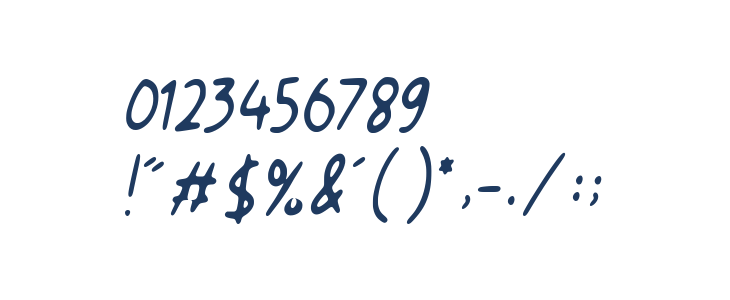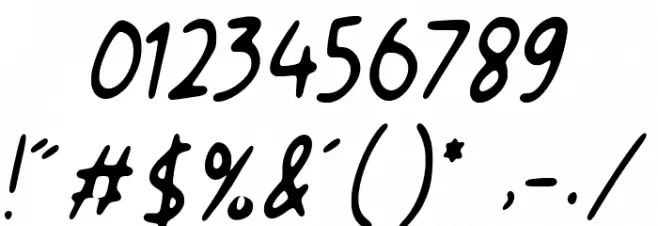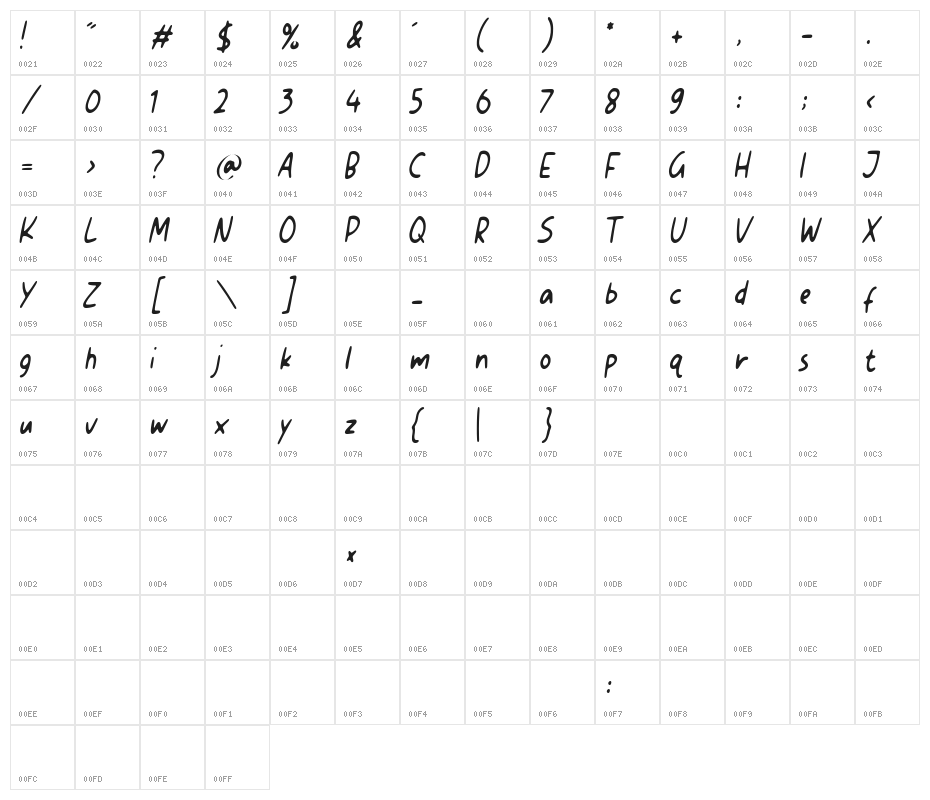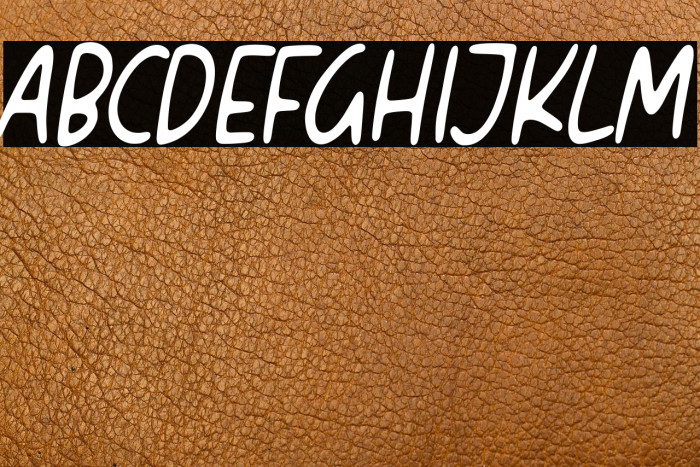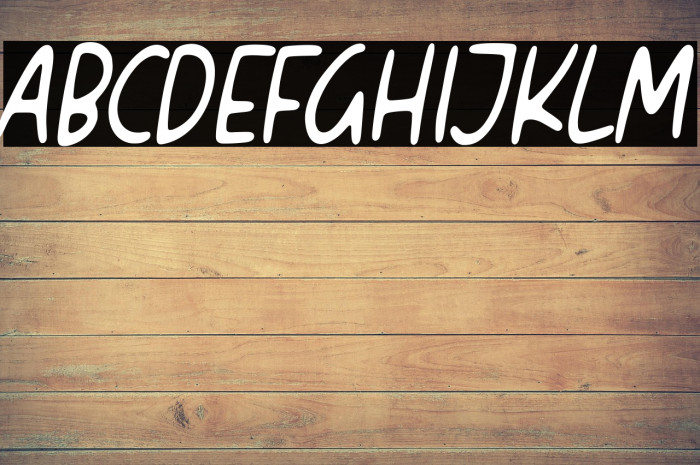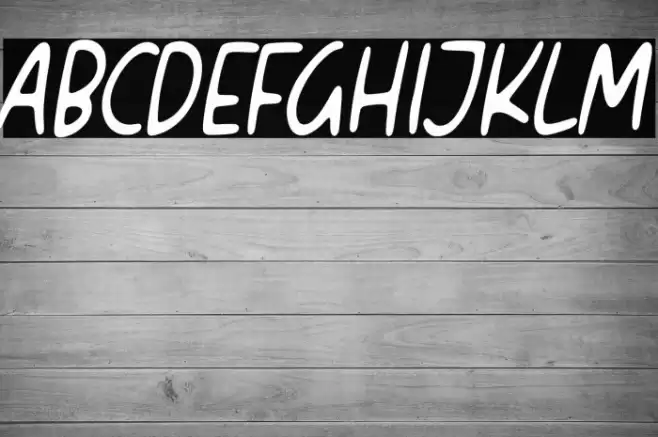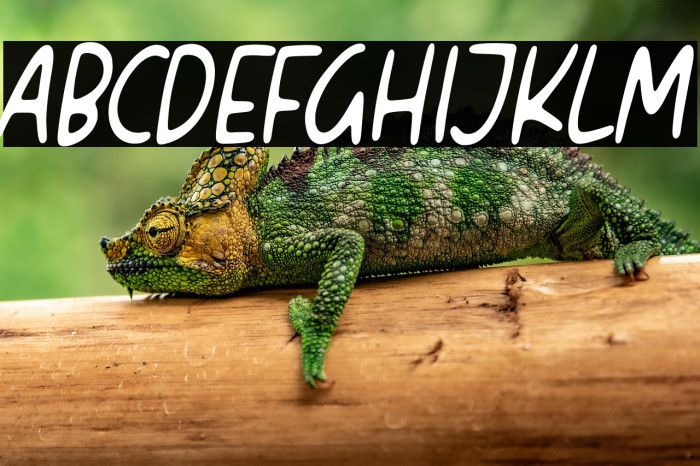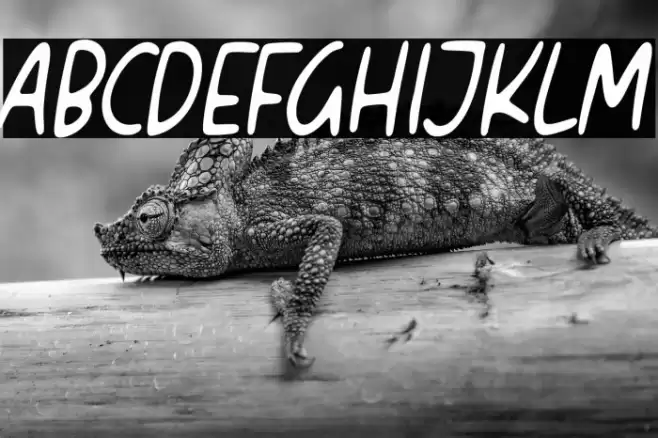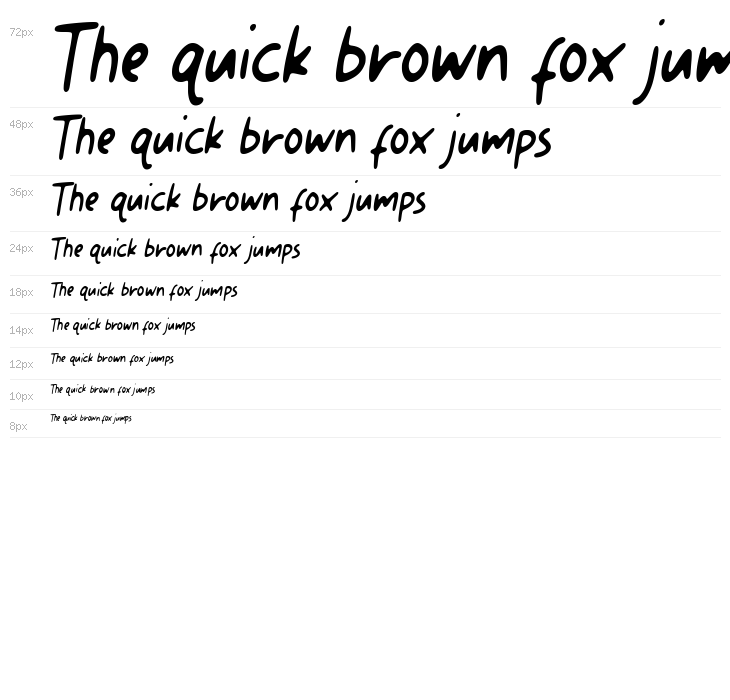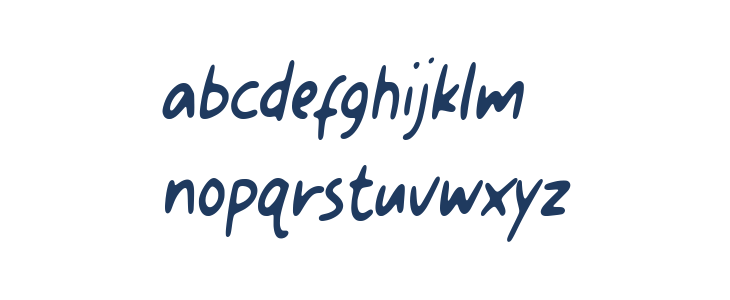
Original Quotes Font
Original Quotes Description
This font features a playful and casual handwritten style, characterized by its smooth, flowing curves and slightly irregular letterforms. The uppercase and lowercase letters maintain a consistent style, with a natural and organic feel that mimics the look of handwriting. The numbers and special characters are designed to match the overall aesthetic, providing a cohesive appearance across all characters. The font's informal nature makes it suitable for projects that require a personal touch or a friendly, approachable vibe.
| Proposed Projects | Ideal for greeting cards, personal invitations, casual branding, and social media graphics. |